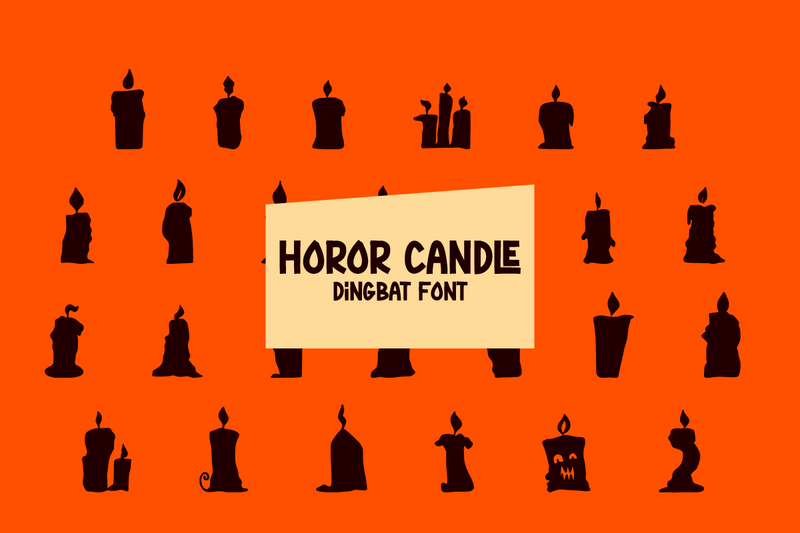
Horror Candle - Dingbat Font
Horror Candle is a unique and creative dingbat font. This font is inspired by the Halloween theme. Inside contains a horror wax glyph